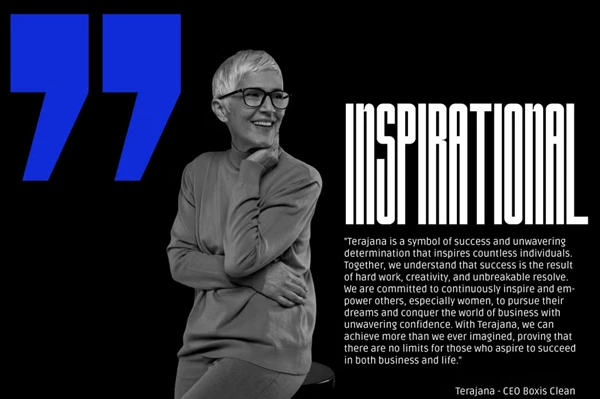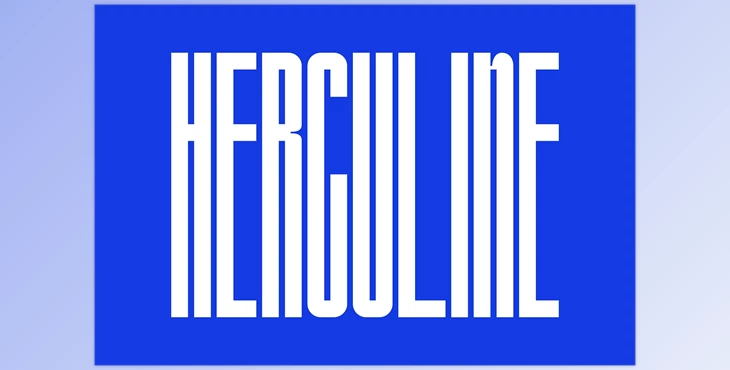
Herculine - Condensed Display Font: Introducing Herculine, an extraordinary display font that elevates the concept of condensed typography to new heights. With its towering and ultra-condensed design, Herculine commands attention and makes a bold statement in any modern, sleek, and clean design project.
The tall and slender letterforms of Herculine give it a distinctive and commanding presence. This allows for efficient space utilization and a unique aesthetic that's perfect for attention-grabbing headlines, film titles, magazine covers, and branding materials.
With its clean and modern look, Herculine exudes sophistication and professionalism, making it a good choice for projects that require a contemporary touch. Whether you're working on posters, banners, or any design that demands a bold, clean, and ultra-modern appearance, Herculine will help your creations stand out in style.